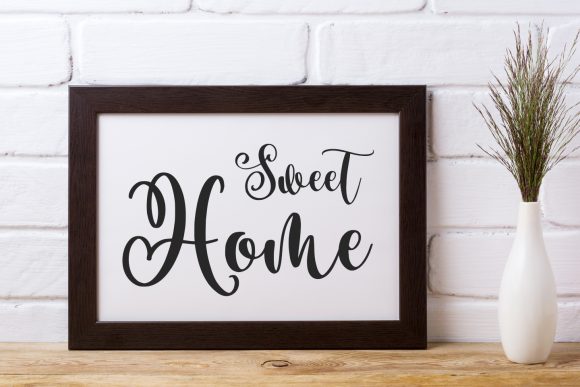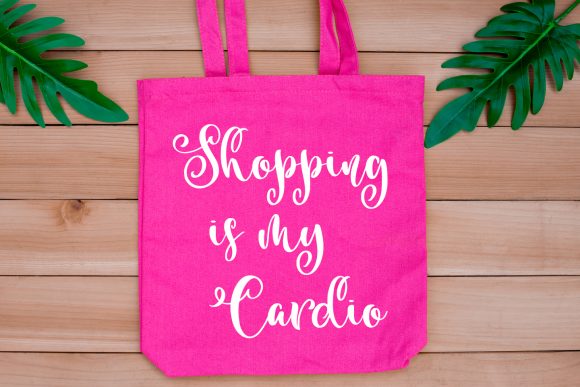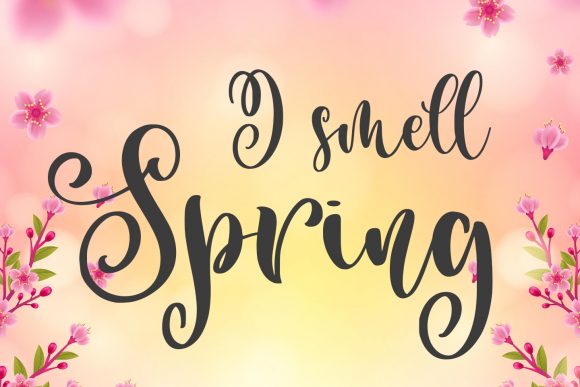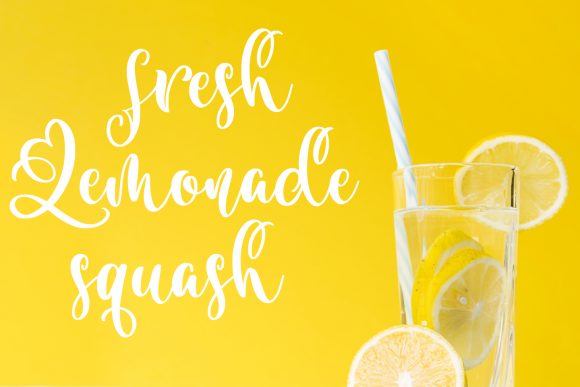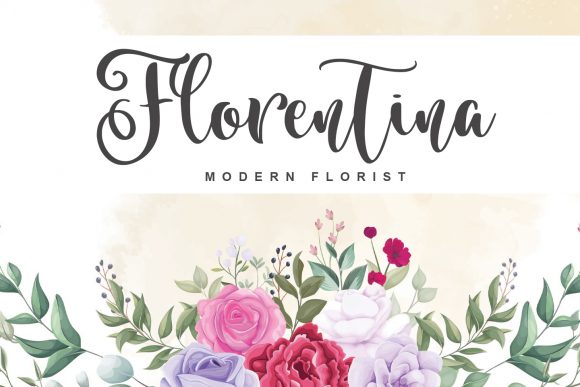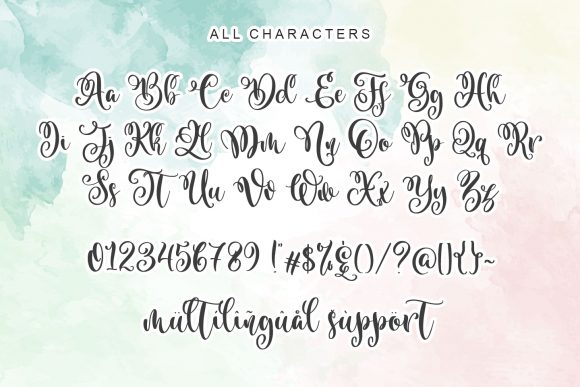
Baby Amber Font: A Whimsical Script Font for Creative Projects
In the world of typography, fonts play a crucial role in conveying the tone and personality of a design. For designers and crafters looking for a unique and versatile font, Baby Amber is an excellent choice. This whimsical script font boasts a relaxed theme, making it an incredibly valuable asset to your font library.
What Makes Baby Amber Font Special?
Baby Amber font is a lovely script font that features a distinctive style, perfect for adding a touch of personality to any creative project. Its relaxed theme gives it a casual and approachable feel, making it ideal for designs that require a friendly tone. Whether you’re working on a branding project, a craft design, or a digital product, Baby Amber font is sure to elevate your creation.
Key Features of Baby Amber Font
- Whimsical Script Style: Baby Amber font features a beautiful, flowing script style that’s perfect for creating eye-catching designs.
- Relaxed Theme: The font’s relaxed theme gives it a casual and friendly feel, making it suitable for a wide range of design projects.
- Versatility: Baby Amber font can be used for various design projects, from branding and advertising to crafting and digital products.
- Elegant and Playful: The font strikes a perfect balance between elegance and playfulness, making it perfect for designs that require a touch of sophistication and whimsy.
Use Cases for Baby Amber Font
Baby Amber font is an incredibly versatile font that can be used for a wide range of design projects, including:
- Branding and Logo Design: Use Baby Amber font to create a unique and memorable logo for your brand.
- Crafting and DIY Projects: Add a personal touch to your crafting and DIY projects with Baby Amber font.
- Digital Products: Use Baby Amber font to create eye-catching digital products, such as ebooks, printables, and more.
- Advertising and Marketing: Baby Amber font is perfect for creating eye-catching ads and marketing materials.
Tips for Using Baby Amber Font
To get the most out of Baby Amber font, here are some tips to keep in mind:
- Pair with Other Fonts: Experiment with pairing Baby Amber font with other fonts to create a unique and visually appealing design.
- Use for Headings and Titles: Use Baby Amber font for headings and titles to add a touch of personality to your design.
- Experiment with Colors: Try out different colors and color combinations to find the perfect match for your design.
In conclusion, Baby Amber font is a beautiful and versatile script font that’s perfect for designers and crafters looking to add a touch of personality to their designs. Its whimsical style, relaxed theme, and elegant feel make it an incredibly valuable asset to your font library. Whether you’re working on a branding project, a craft design, or a digital product, Baby Amber font is sure to elevate your creation.